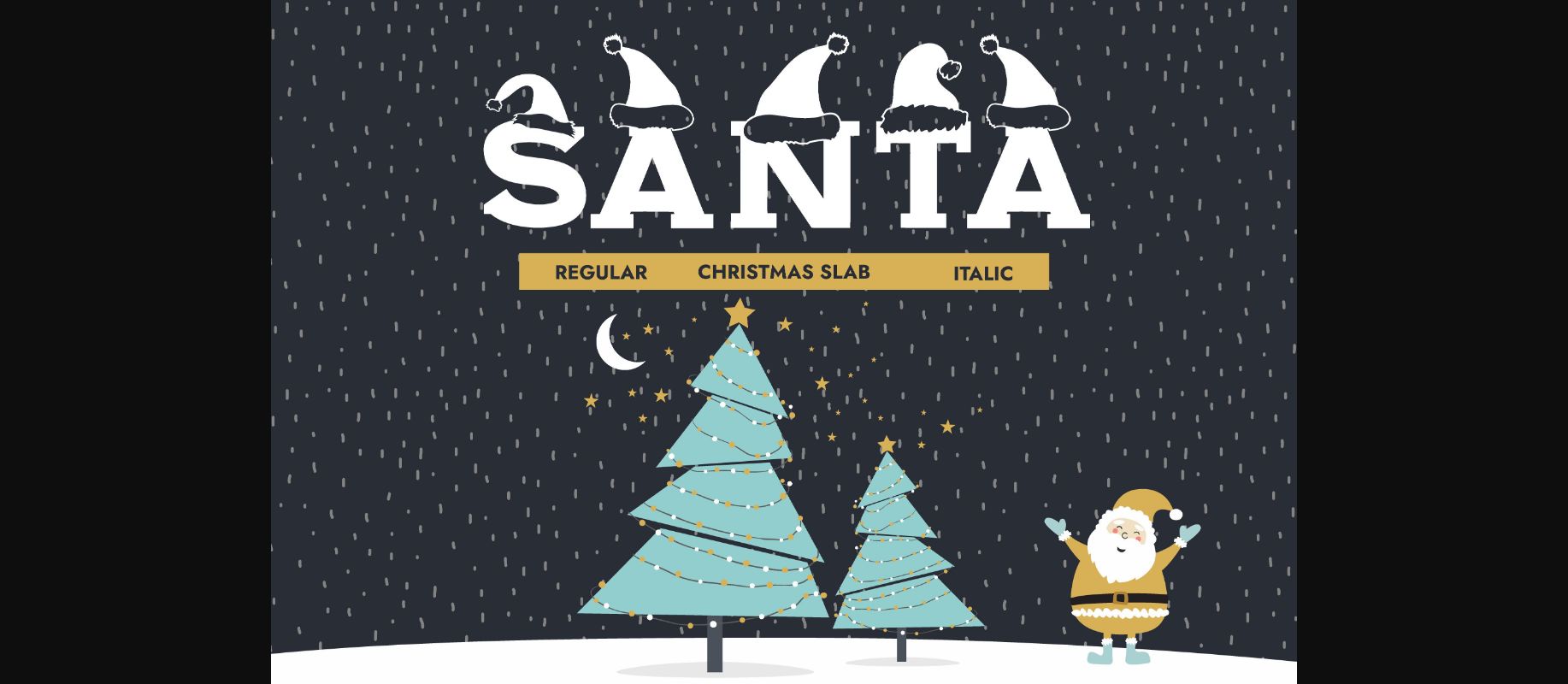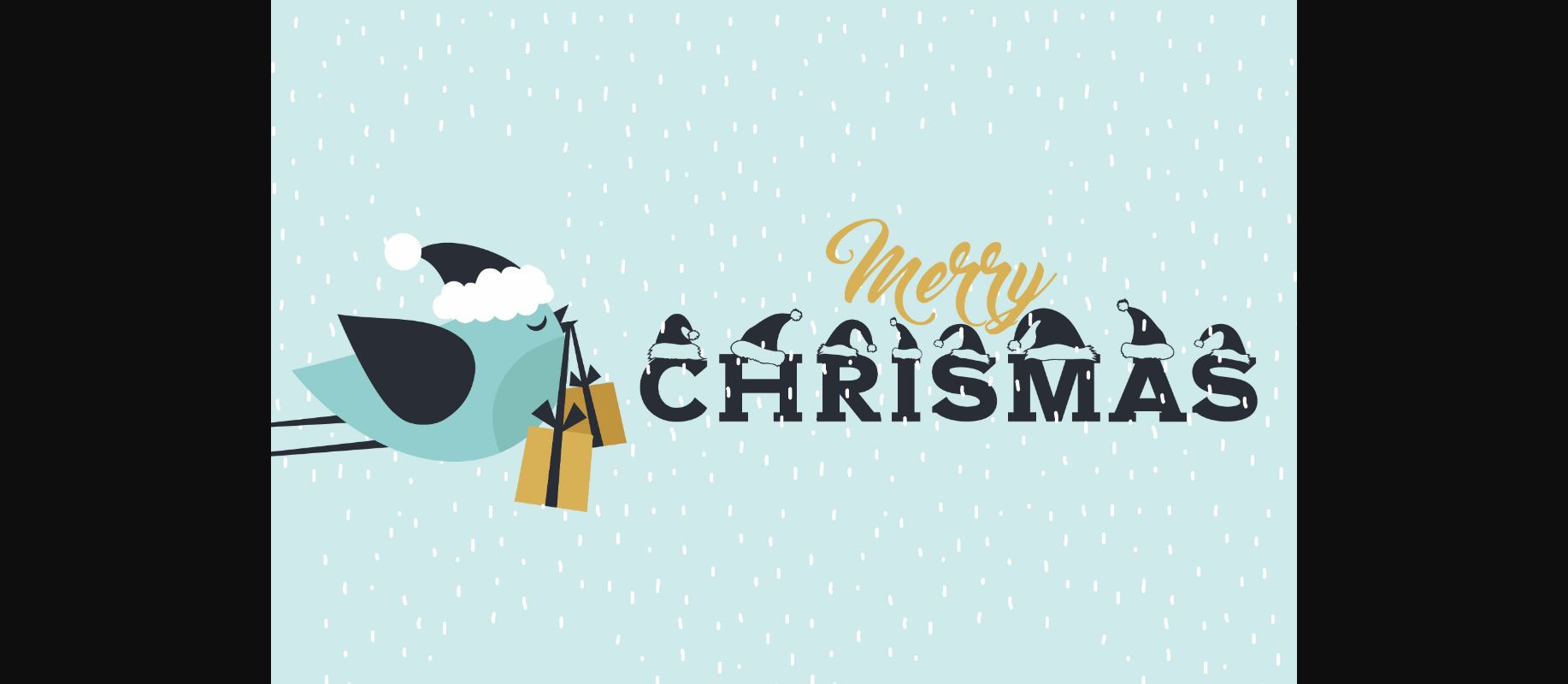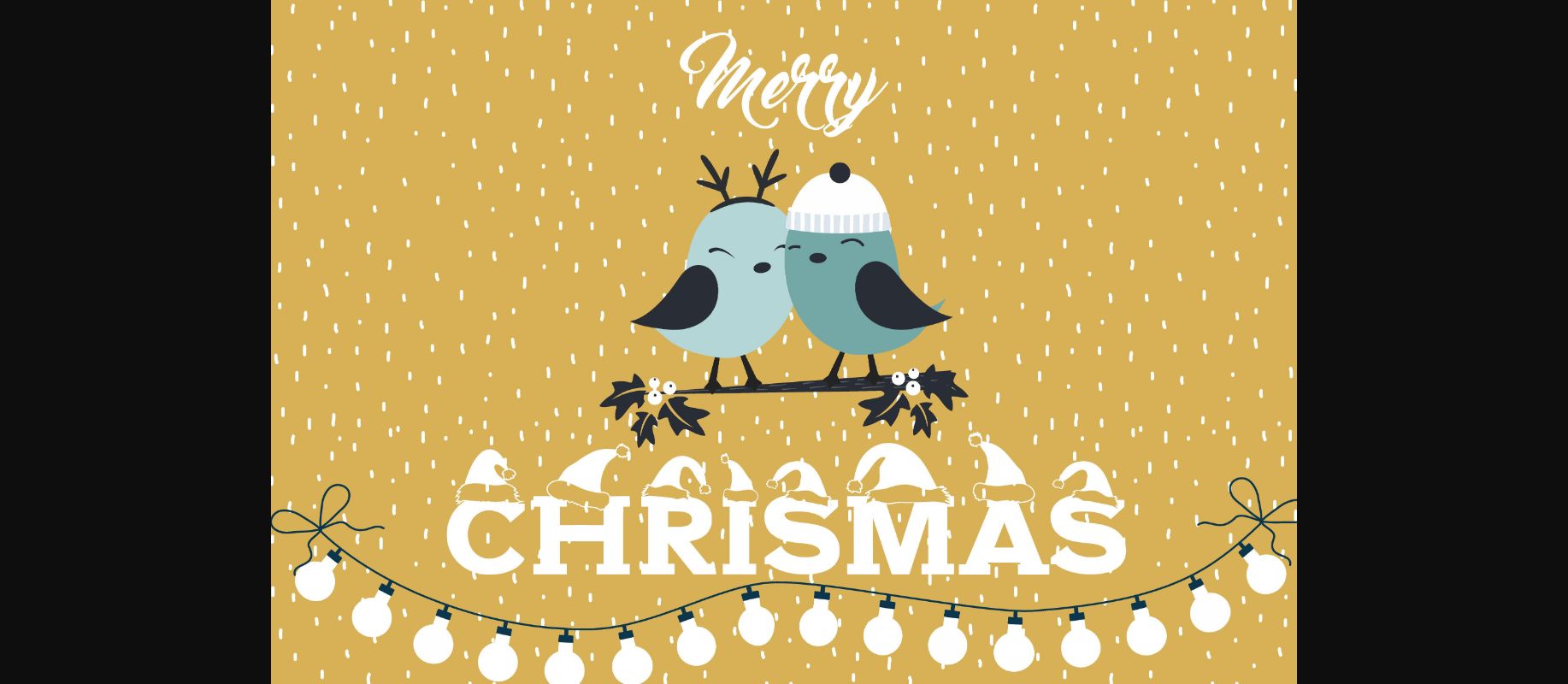
About Santa Font
Santa is a decorative Christmas-themed slab serif typeface. It can be used for creating Christmas-related graphics, such as magazines, website banners, social posts, holiday branding, invitations, product packaging, t-shirts, posters, labels, quotes, etc